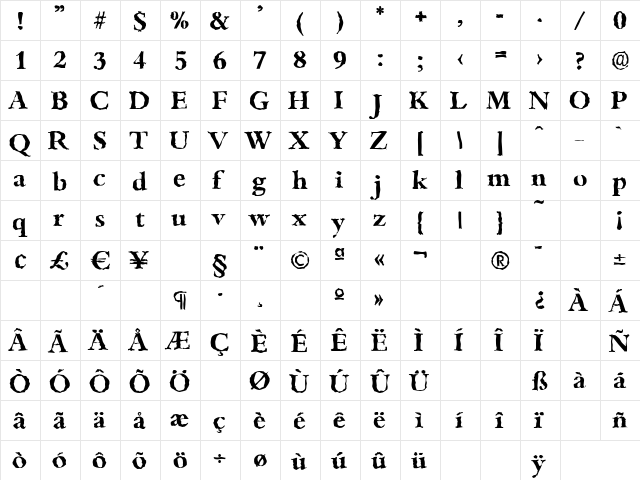
BambergRandom Bold
Design Context for BambergRandom Typeface
BambergRandom takes a measured approach to typography — its balanced proportions and neutral character make it a reliable workhorse for both digital and print work. The heavy weight commands attention and anchors typographic hierarchies.